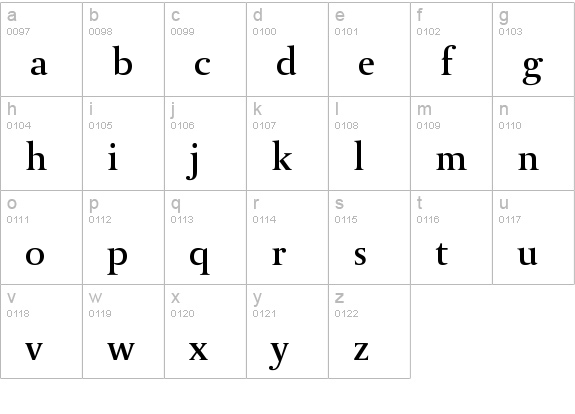
DTLParadoxT-Medium is a balanced, medium-weight variant in the DTLParadoxT typeface family \xE2\x80\x94 well suited to sub-headlines, navigation, and balanced editorial work.
DTLParadoxT-Medium is a versatile and modern typeface that strikes the perfect balance between elegance and readability. Its clean lines and unique design make it a great choice for a wide range of design projects, from branding to editorial design. The medium weight adds just the right amount of impact without being overpowering, making it suitable for both headlines and body text. What makes DTLParadoxT-Medium even more appealing is that it is available for free download at FontsMarket.com. This means that you can easily access this high-quality font without any cost, making it a valuable addition to your font library. Whether you're a designer looking for a new go-to font or a hobbyist experimenting with typography, DTLParadoxT-Medium is sure to impress with its versatility and style.